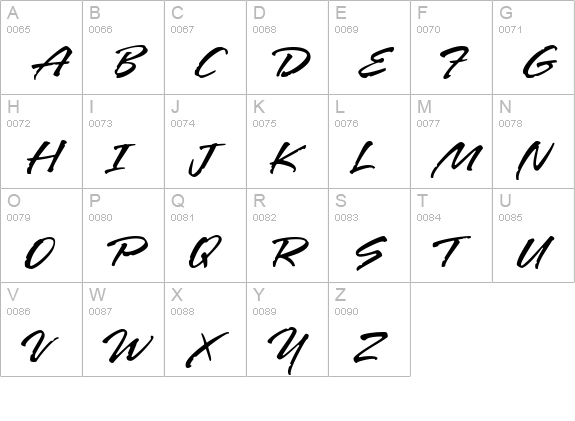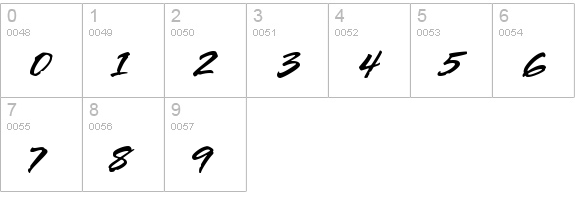
LamboHmkBold Font Details
LamboHmkBold font is a bold and dynamic typeface that exudes confidence and strength. Its sharp lines and sleek curves give it a modern and edgy look, making it perfect for headlines, logos, and branding projects. This font is not only visually striking, but it also offers a versatile range of glyphs, including uppercase and lowercase letters, numbers, and punctuation marks. Its bold weight ensures that your message will be heard loud and clear, leaving a lasting impression on your audience. But what sets LamboHmkBold font apart from other fonts is that it is freely available to download at FontsMarket.com. Yes, you read that right - you can access this amazing font without spending a dime. This means that whether you are a professional designer working on a client project or a hobbyist creating personal designs, you can take advantage of LamboHmkBold font's striking aesthetic and powerful presence. So why wait? Head over to FontsMarket.com to download LamboHmkBold font today and unleash its boldness and versatility in your next design project. With its free availability, you have nothing to lose and everything to gain. Elevate your designs and make a statement with LamboHmkBold font - the perfect blend of style and accessibility.